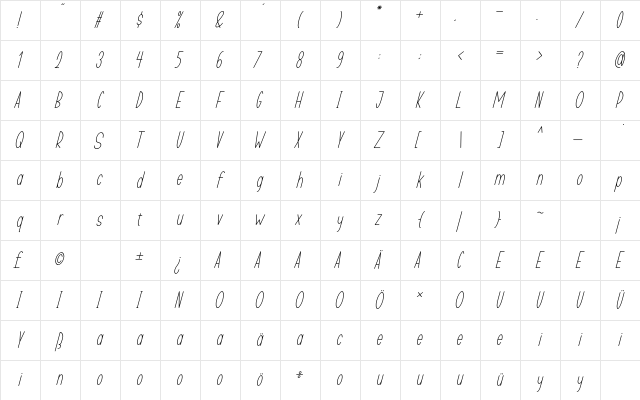
TASTY COOKIES is a composed and adaptable typeface that performs quietly and consistently across a wide range of design contexts. The slanted form adds forward momentum and visual energy.
Pro Tip: Use TASTY COOKIES for emphasis, pull quotes, and subheadings where its slanted energy can add rhythm to the layout.